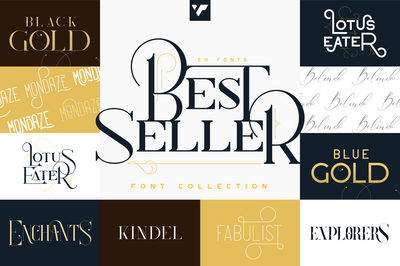
The Bestseller Font Collection
Introducing   The Bestseller Font Collection – 20 fonts in 10 typefaces + Vector Illustrations
The Bestseller Font Collection is elegant, vintage collection loaded with 20 serif, display and script fonts, vector illustrations and multilingual support. They are very versatile fonts that works great in large and small sizes.
This collection is perfect for branding projects, home-ware designs, product packaging, magazine headers – or simply as a stylish text overlay to any background image.